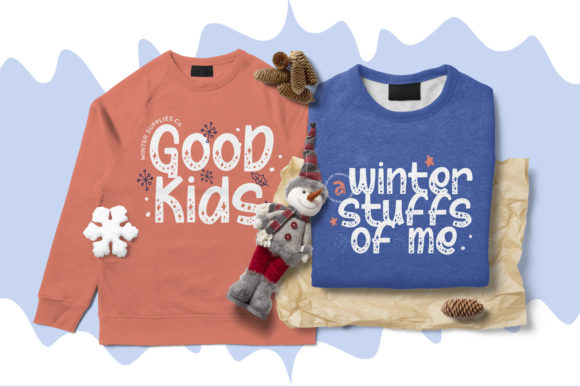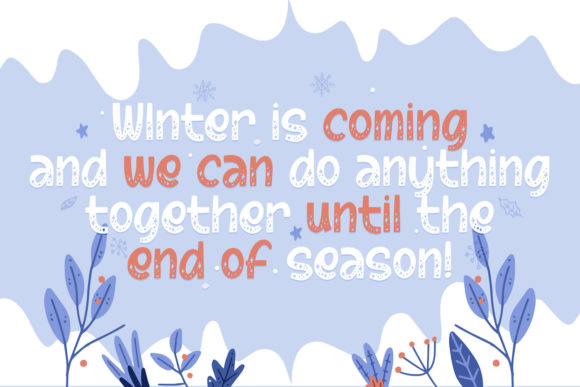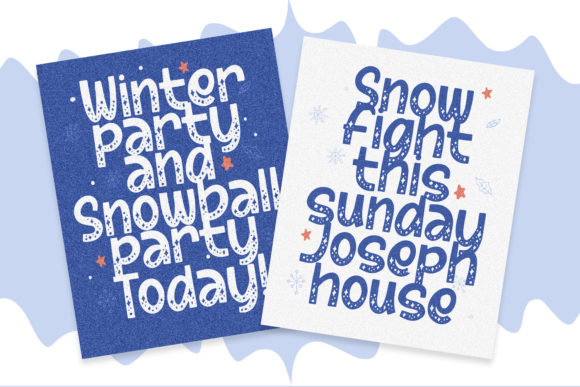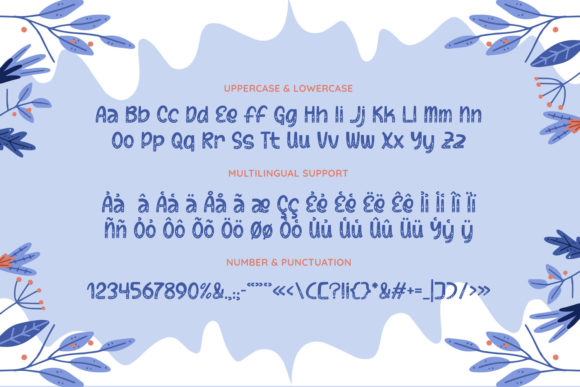
Discover the Perfect Companion for Your Creative Projects
Have you ever stared at a blank canvas, waiting for inspiration to strike? You know, that magical moment when the world around you disappears, and your imagination takes over. For designers, this moment is a thrill, a spark that ignites a creative fire. And for those who love typography, there’s one tool that can elevate this spark into a full-blown blaze – the Alaskan Font.
This casual, fun, and friendly display font is the perfect companion for any project that requires a touch of personality. From logos and branding to photography, invitations, and product designs, the Alaskan Font is the ultimate sidekick. Its versatility and charm make it a valuable addition to any designer’s toolkit, allowing them to create unique and captivating designs that leave a lasting impression.
Key Features of Alaskan Font
- Font Family: Alaskan is a typeface designed to evoke the rugged beauty of Alaska, with a unique blend of modern and traditional elements.
- Unique Characteristics: Alaskan features a distinctive, hand-crafted look, with subtle irregularities and variations that give it a unique, human touch.
- Language Support: Alaskan supports a wide range of languages, including Latin, Cyrillic, and Greek scripts, making it a versatile choice for designers working on international projects.
Designer Review: Alaskan Font
As a designer, I was excited to try out the Alaskan Font. Here’s my honest review.
- The font’s rustic, outdoorsy feel is perfect for projects that evoke a sense of adventure and exploration.
- The bold and regular weights work well together, making it easy to create a cohesive visual identity.
- The font’s versatility is impressive, working well for both body text and headlines.
- The font’s unique letterforms add a touch of personality to any design project.
- The font’s legibility can suffer at smaller font sizes, making it less suitable for fine print or text-heavy projects.
- The font’s unique letterforms can be distracting in certain contexts, such as for projects that require a clean and simple aesthetic.
- The font’s lack of italic and oblique styles can limit its versatility in certain design projects.
The Alaskan Font is a unique and versatile font that can add a touch of personality to any design project. While it may have some limitations, its strengths far outweigh its weaknesses. I would definitely recommend it for projects that require a rustic, outdoorsy feel.
Alaskan Font Practical Application Guide
Alaskan Font is ideal for creating unique, rustic, or vintage-inspired designs. Use it to add a touch of personality to your designs, such as in logos, posters, or social media graphics. You can also use Alaskan Font to create hand-drawn text effects or to add a personal touch to your presentations and documents.